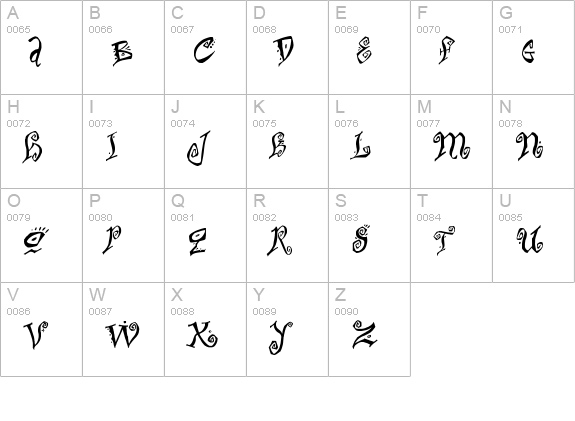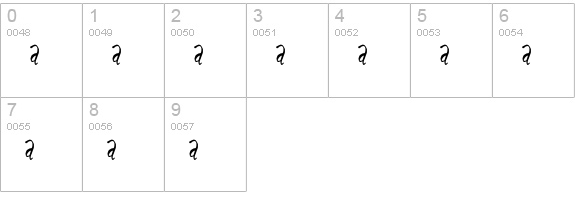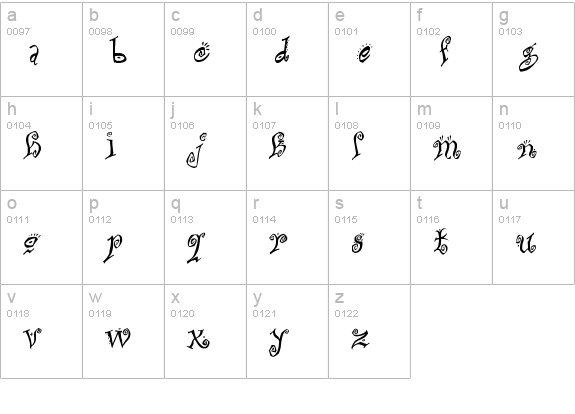
Bitchin Font Details
Bitchin font is a modern and stylish typeface that exudes confidence and creativity. Its bold and edgy design is perfect for making a statement in your projects. With its sharp lines and sleek curves, Bitchin font adds a touch of attitude to any design. Whether you're creating a poster, logo, or social media graphic, this font will grab attention and leave a lasting impression. The best part? Bitchin font is available for free download at FontsMarket.com. This means you can easily access this eye-catching font and incorporate it into your work without breaking the bank. Don't miss out on the opportunity to elevate your designs with the bold and unique style of Bitchin font. Download it today and let your creativity shine!